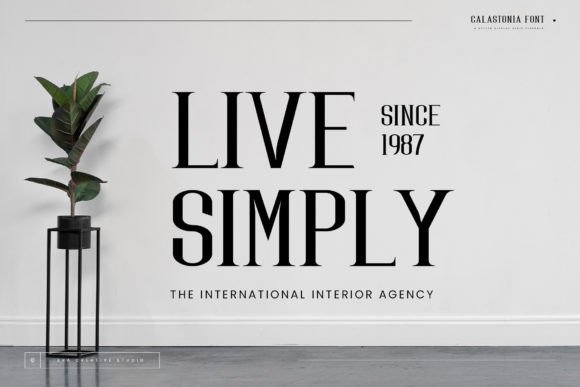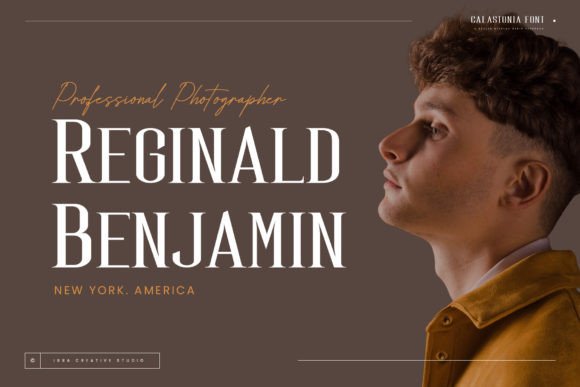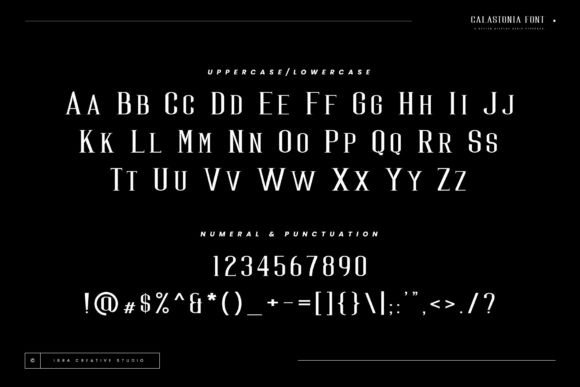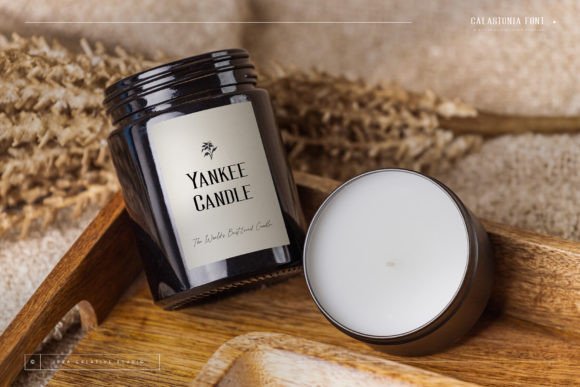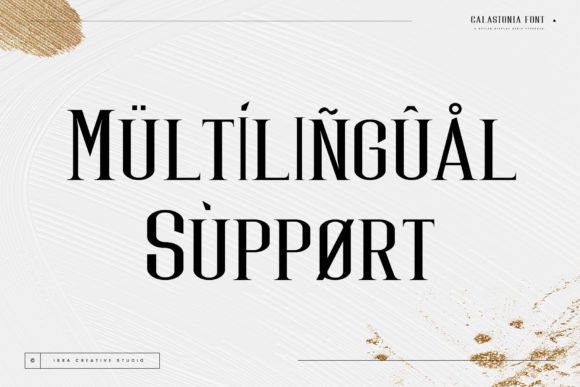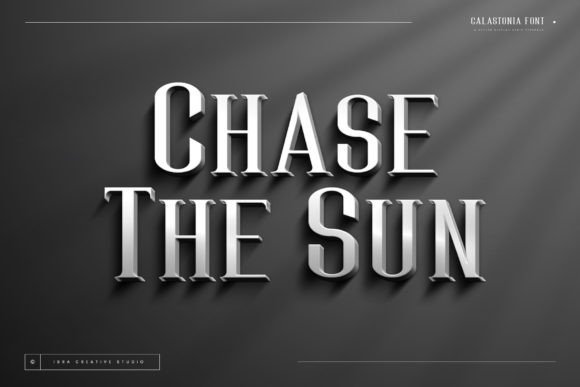
The Perfect Union of Elegance and Sophistication: Unveiling the Calastonia Font
Have you ever stumbled upon a font that makes you stop and pause, just to admire its beauty? That’s exactly what happened to me when I discovered the Calastonia Font. As a designer, I’m always on the lookout for that perfect combination of style and functionality, and Calastonia Font delivers just that.
Calastonia Font is a meticulously crafted display serif typeface that exudes a perfect blend of sophistication and modern elegance. With its distinct letterforms and refined details, it brings a timeless charm to any design project. Whether you’re a seasoned designer or just starting out, Calastonia Font is an invaluable addition to your toolkit, offering a unique visual appeal that’s sure to capture attention and convey a sense of luxury.
Calastonia Font Key Features
- Font Family: Calastonia Font is a unique, high-quality font family that includes various styles and weights.
- Character Set: Supports a wide range of languages, including Latin, Cyrillic, and Greek alphabets, making it suitable for multilingual designs.
- Unique Characteristics: Features a unique blend of modern and vintage elements, giving it a distinctive and stylish look that sets it apart from other fonts.
- Font Styles: Includes various font styles, such as Regular, Bold, Italic, and Bold Italic, to cater to different design needs.
Designer Review: Calastonia Font
Overall, I think Calastonia Font is a solid choice for projects that require a touch of elegance and sophistication. ✨ The font’s unique letterforms and subtle flair make it stand out from more traditional serif fonts. I particularly appreciate its versatility, as it can be used for both body text and headlines.
- What I like:
- ✨ Elegant and refined aesthetic
- ✨ Versatile and suitable for various text sizes
- ✨ Unique letterforms add visual interest
- What I don’t like:
- ⚠️ Limited language support (no Cyrillic or Arabic support)
- ⚠️ May not be suitable for projects that require a bold or playful tone
- ⚠️ Some letterforms may be difficult to read at very small sizes
In conclusion, while Calastonia Font may not be perfect, it’s a great choice for projects that require a touch of sophistication and elegance. With its unique letterforms and versatility, it’s definitely worth considering for your next design project.
Tip: Use Calastonia Font for headings and titles to create a bold and elegant look.
Tip: Use Calastonia Font for logos and typography projects to create a unique and stylish look.
Tip: Use Calastonia Font for presentations and reports to create a professional and polished look.
Calastonia Font is ideal for:
- Typography projects
- Editorials and publications
With its elegant and
Playfair Display is an elegant and luxurious serif font suitable for high-end branding, magazines, and advertising. Its refined and sophisticated design makes it ideal for formal and elegant content. Compared to Calastonia Font, Playfair Display has a more refined and delicate feel, making it perfect for creating a sense of luxury and sophistication.
Merriweather is a classic and timeless serif font that works well for body text and titles. Its clean and legible design makes it suitable for a wide range of applications, including books, magazines, and websites. Compared to Calastonia Font, Merriweather has a more traditional and conservative feel, making it perfect for creating a sense of trust and credibility.
Montserrat is a modern and sleek sans-serif font that works well for titles and headings. Its geometric design makes it perfect for creating a sense of urbanity and sophistication. Compared to Calastonia Font, Montserrat has a more minimalist and modern feel, making it ideal for creating a sense of innovation and progress.